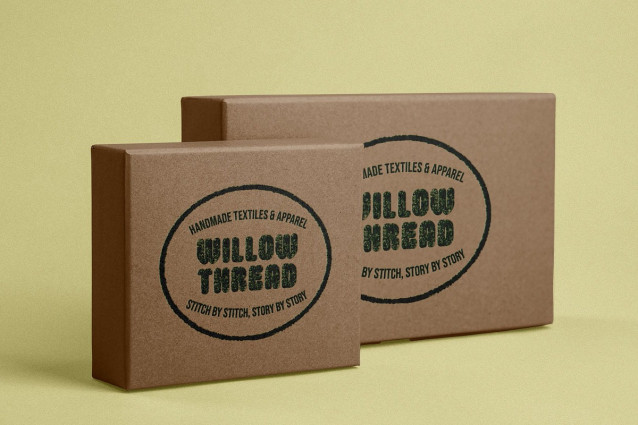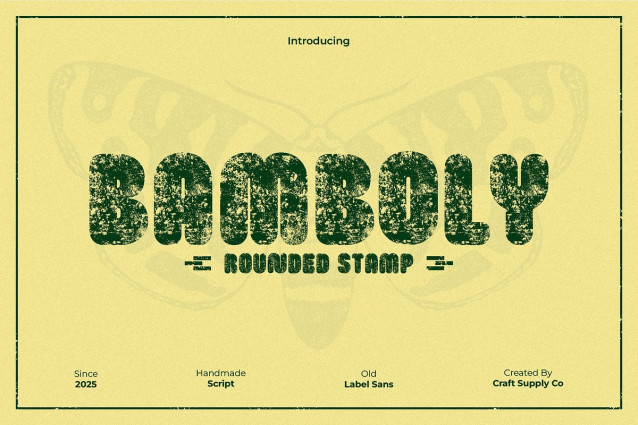
Bamboly Rounded Stamp Font
Bamboly Rounded Stamp Font is a bold sans serif display font defined by its chunky, strong letterforms, condensed and smooth, rounded edges. Designed to capture attention, it balances structure and playfulness perfect for projects that need both impact and personality.
Funky Retro Influence Infused with retro-inspired charm, this font brings a touch of nostalgia wrapped in modern design. Its bold, geometric rhythm makes it ideal for posters, headlines, and branding that aim to stand out with a confident yet approachable aesthetic.
Stamp Texture for Authentic Character The stamp texture gives the font a slightly distressed, handmade look, adding depth and tactile warmth to each letter. This organic imperfection makes it perfect for vintage-themed layouts, creative campaigns, or expressive logos that seek a crafted and distinctive identity.
Perfect for Eye-Catching Designs This font thrives in bold and creative applications, delivering a retro yet unconventional style that feels dynamic and full of life. Whether used in digital or print projects, it ensures your design leaves a memorable, artistic impression every time.